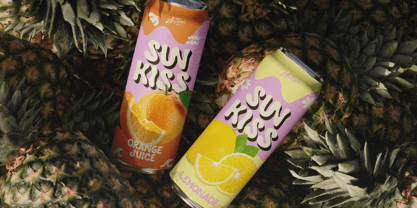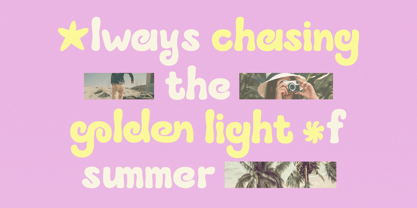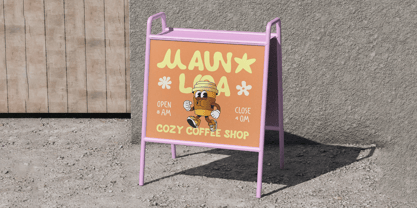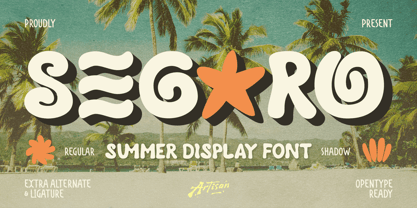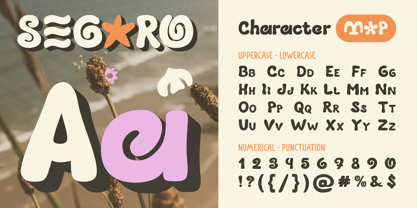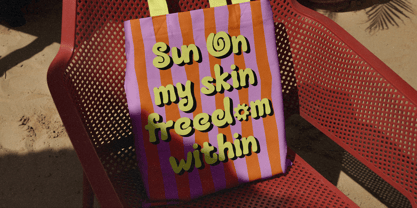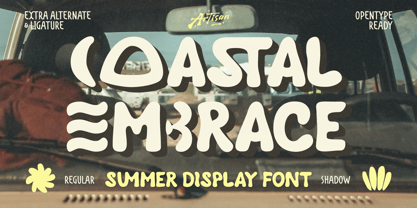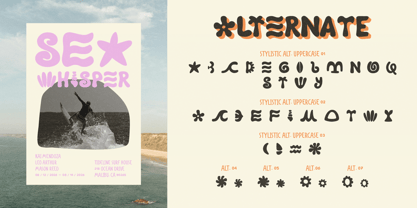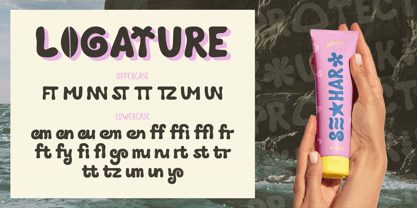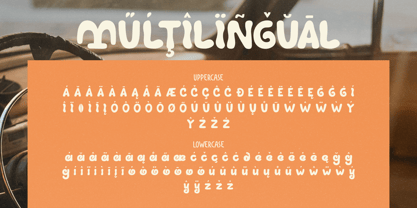
Segaro
by Artisan Themes
The Segaro Font Family was designed by Meidy Meichico and published by Artisan Themes. Segaro contains 2 styles and family package options. More about this family
Segaro is a fun and playful summer display font that brings instant sunshine to your designs. With its chunky, rounded shapes and groovy retro vibe, this font is perfect for creating cheerful and eye-catching visuals. Inspired by beach days, tropical vibes, and warm golden light, Segaro delivers a bold personality while staying friendly and easy to read. The soft curves and unique alternates make your typography feel lively, fresh, and full of character. This font comes with regular and shadow styles, plus plenty of alternates and ligatures to help you create more dynamic and custom-looking text. Whether you're working on branding or social media graphics, Segaro adds that perfect splash of summer energy. Perfect for summer branding, packaging design, posters & headlines, social media graphics, retro & tropical themes, fun merchandise.
Designers: Meidy Meichico
Foundry: Artisan Themes